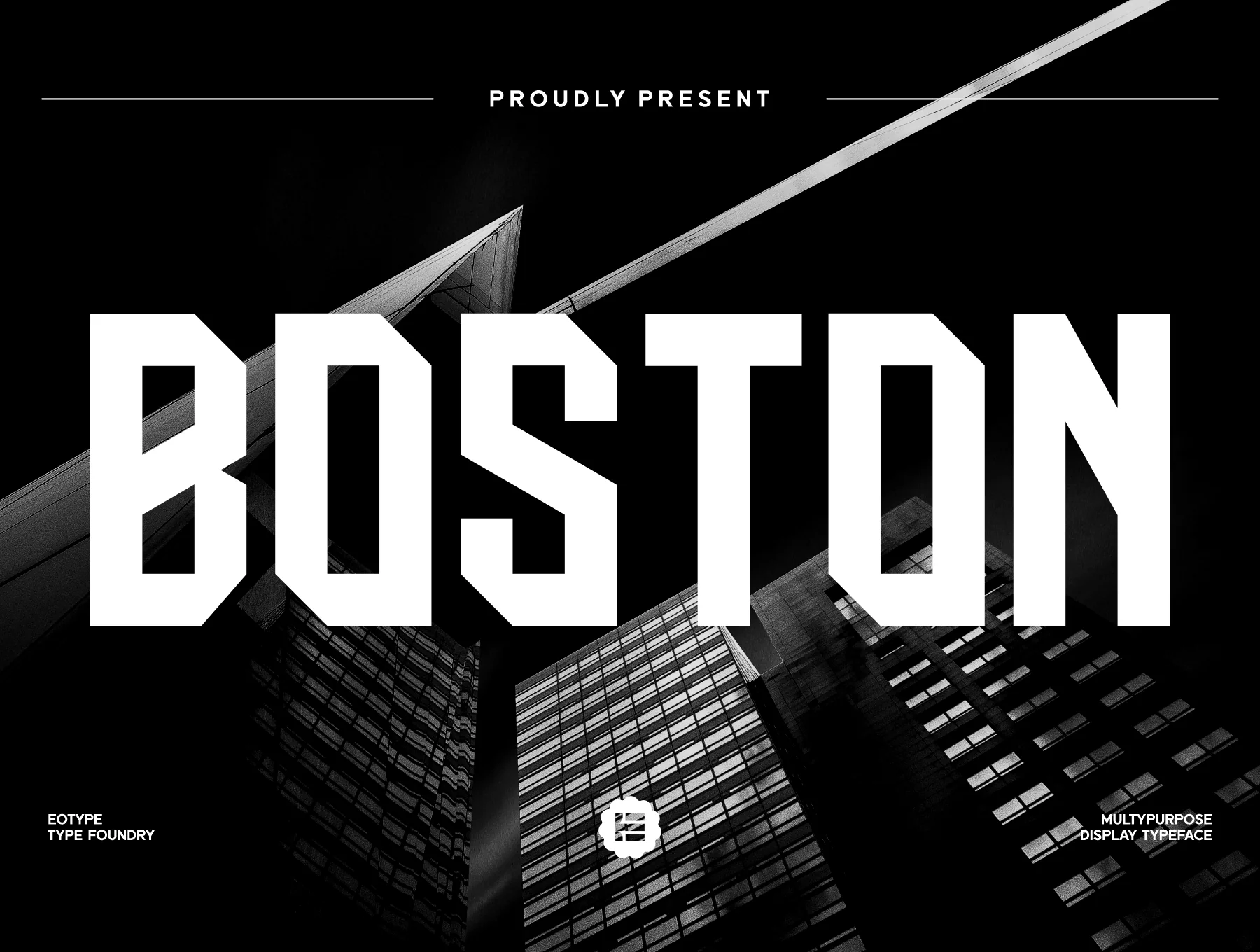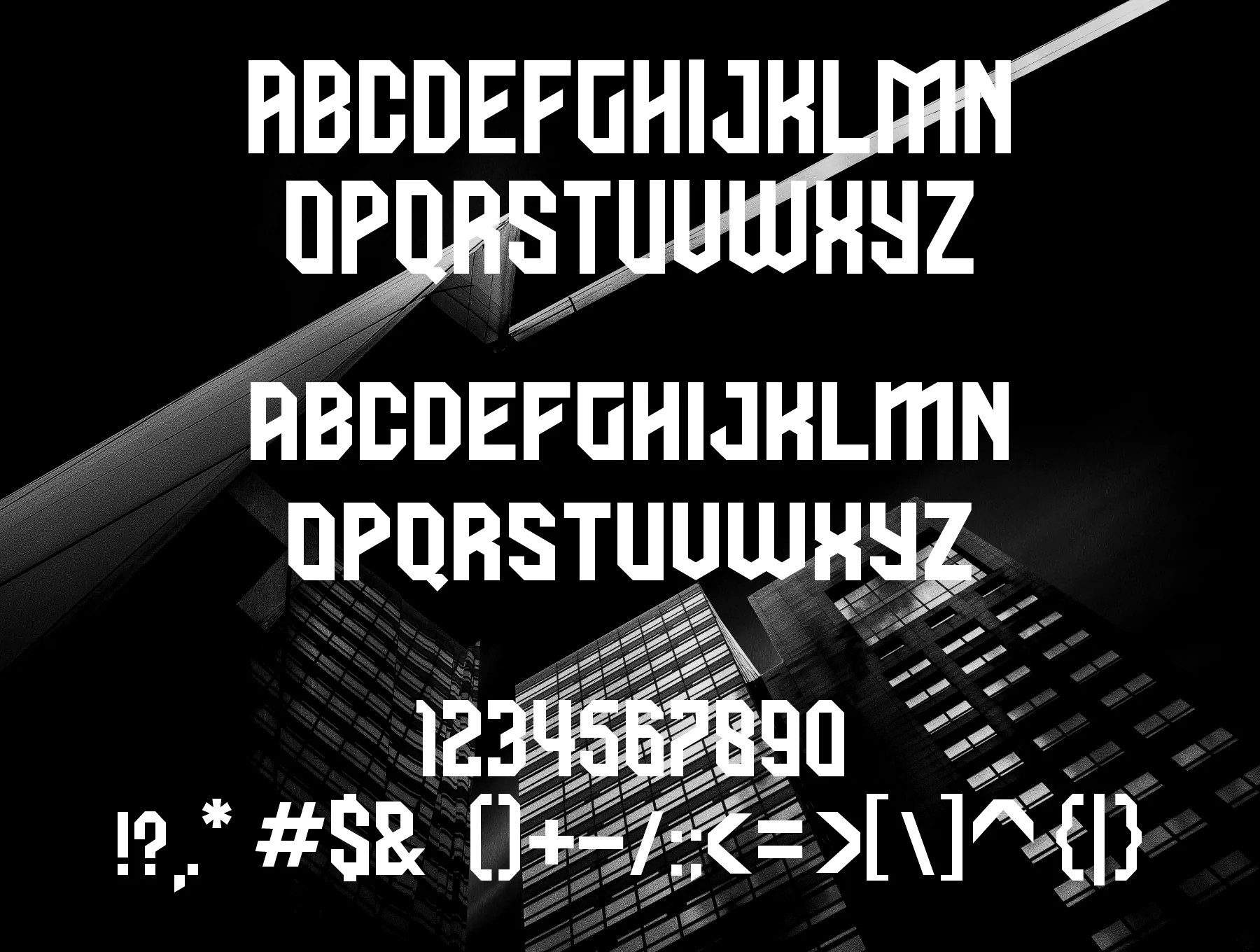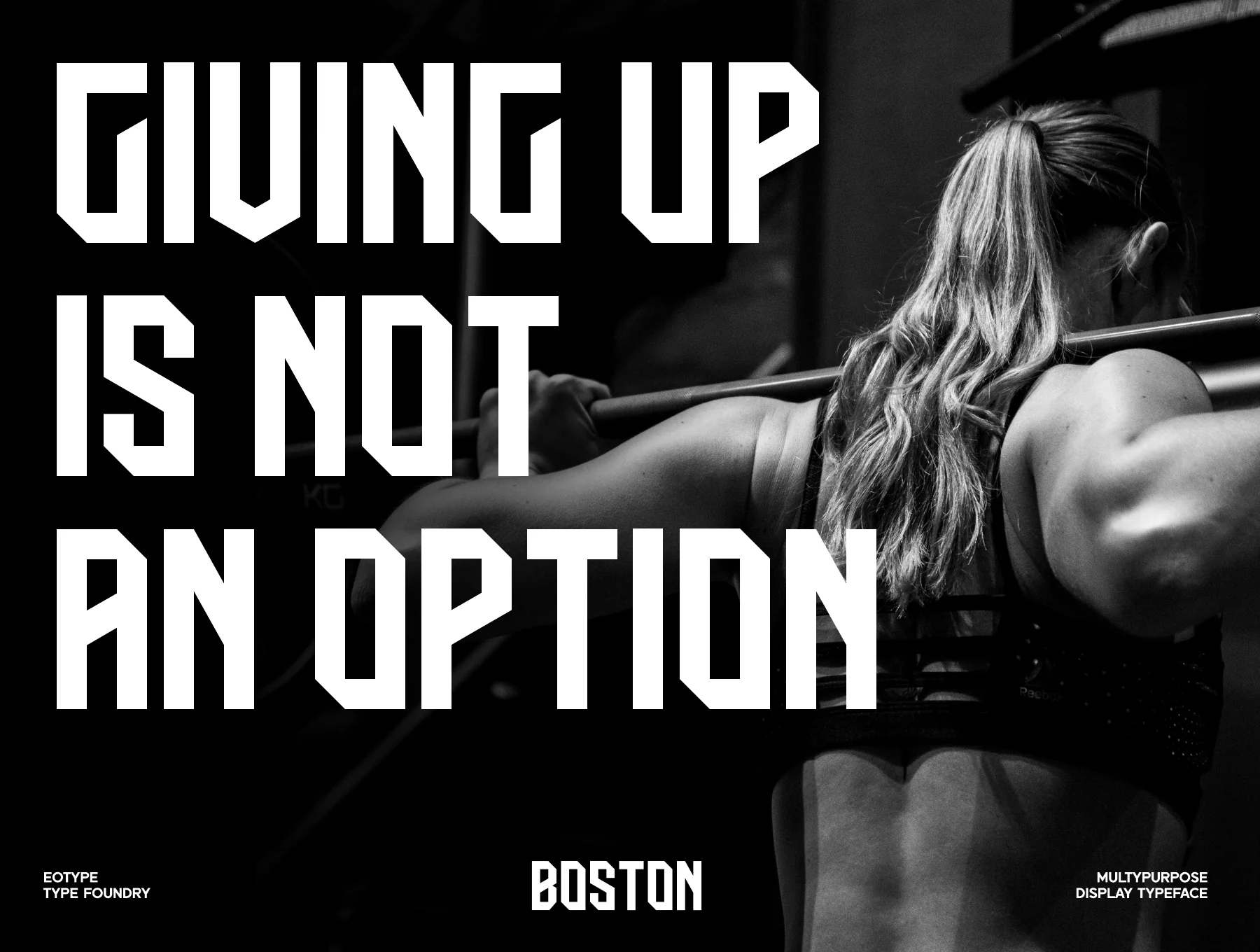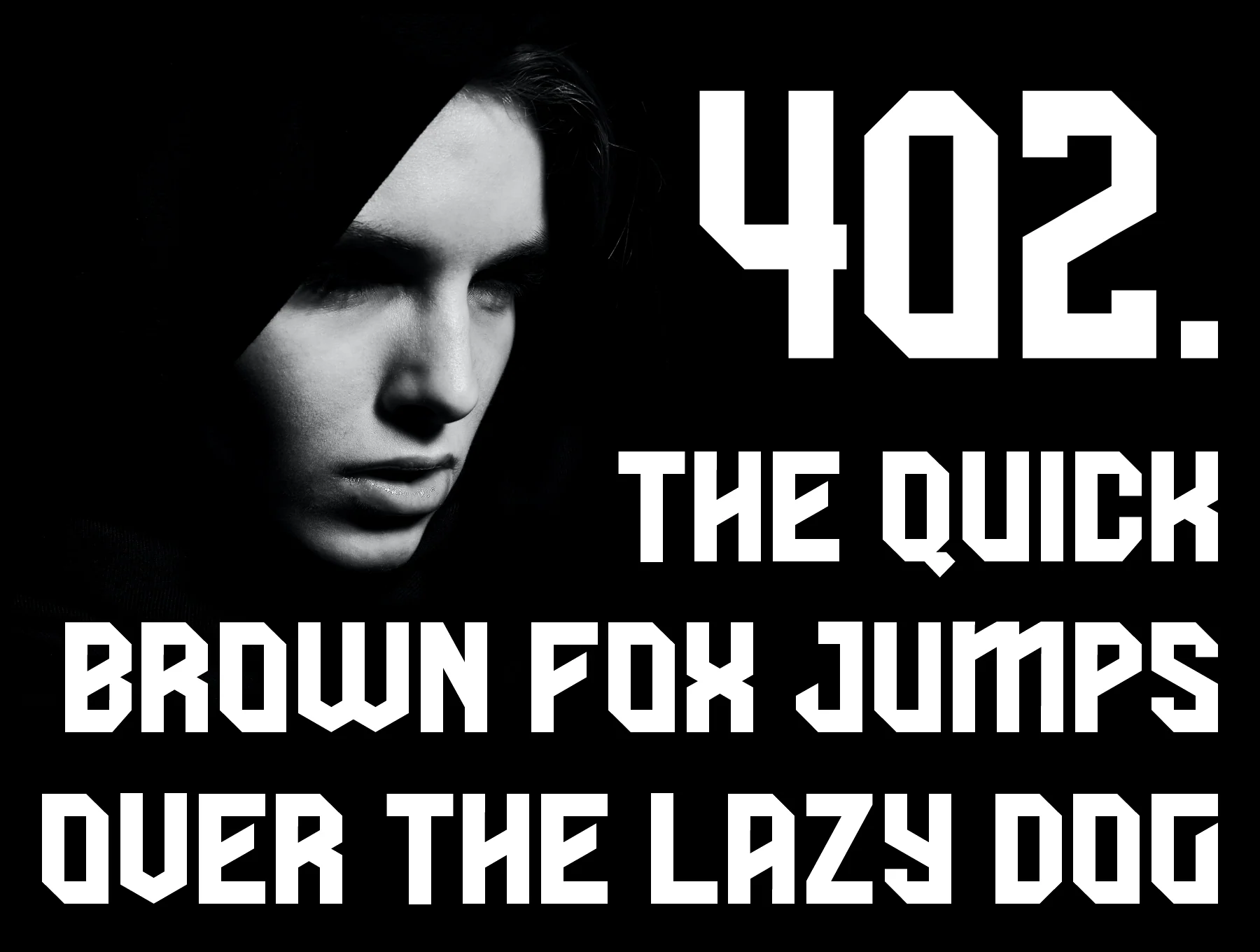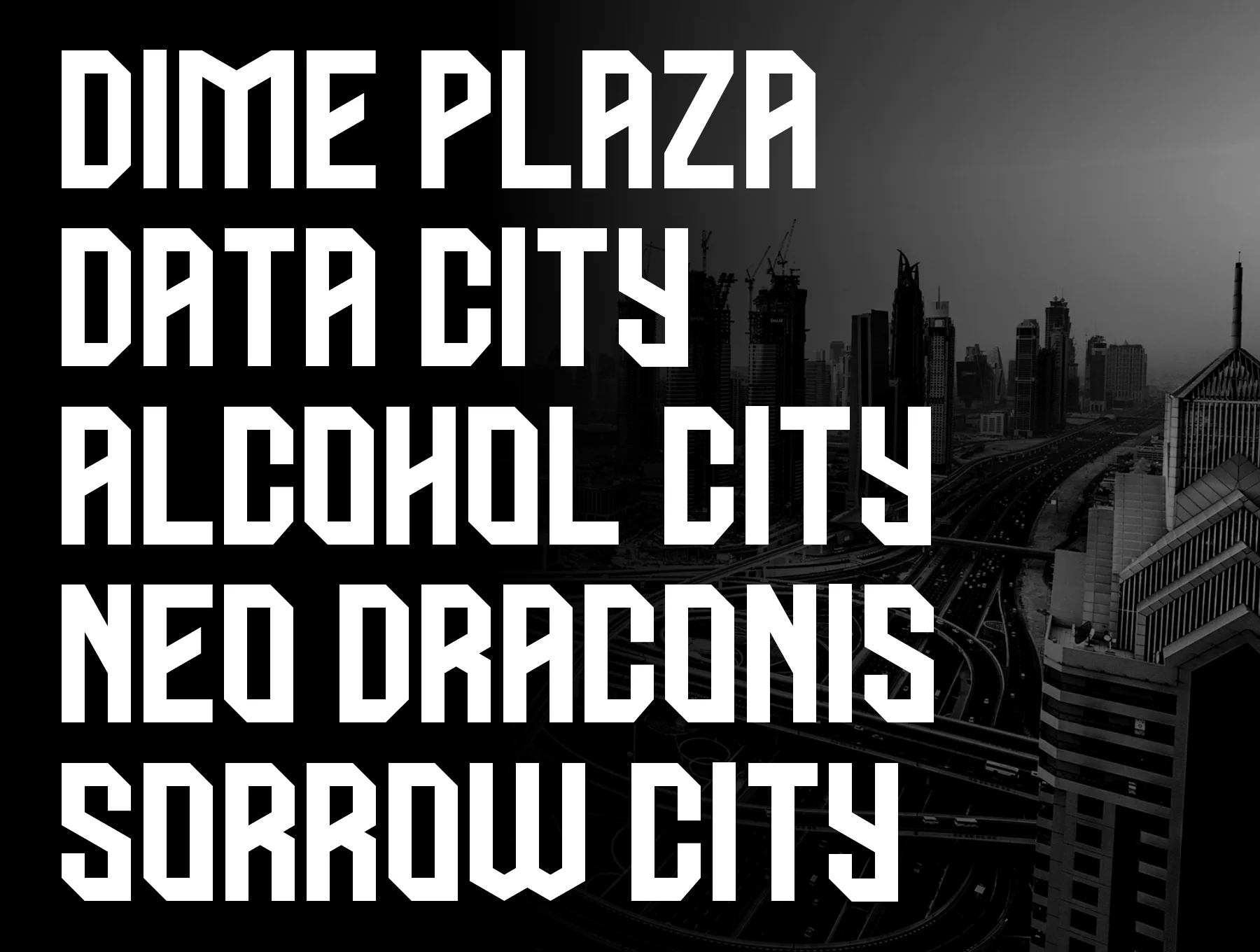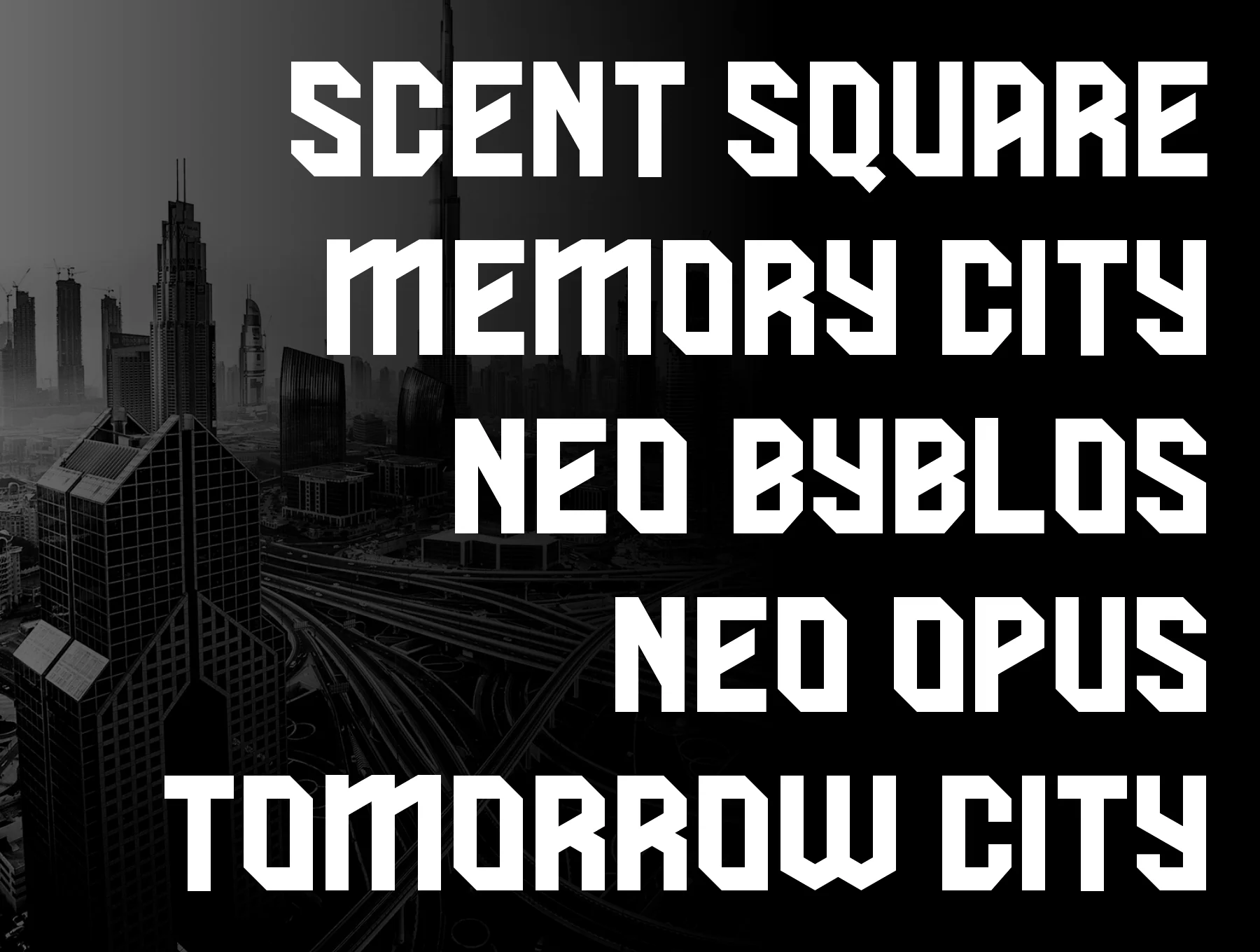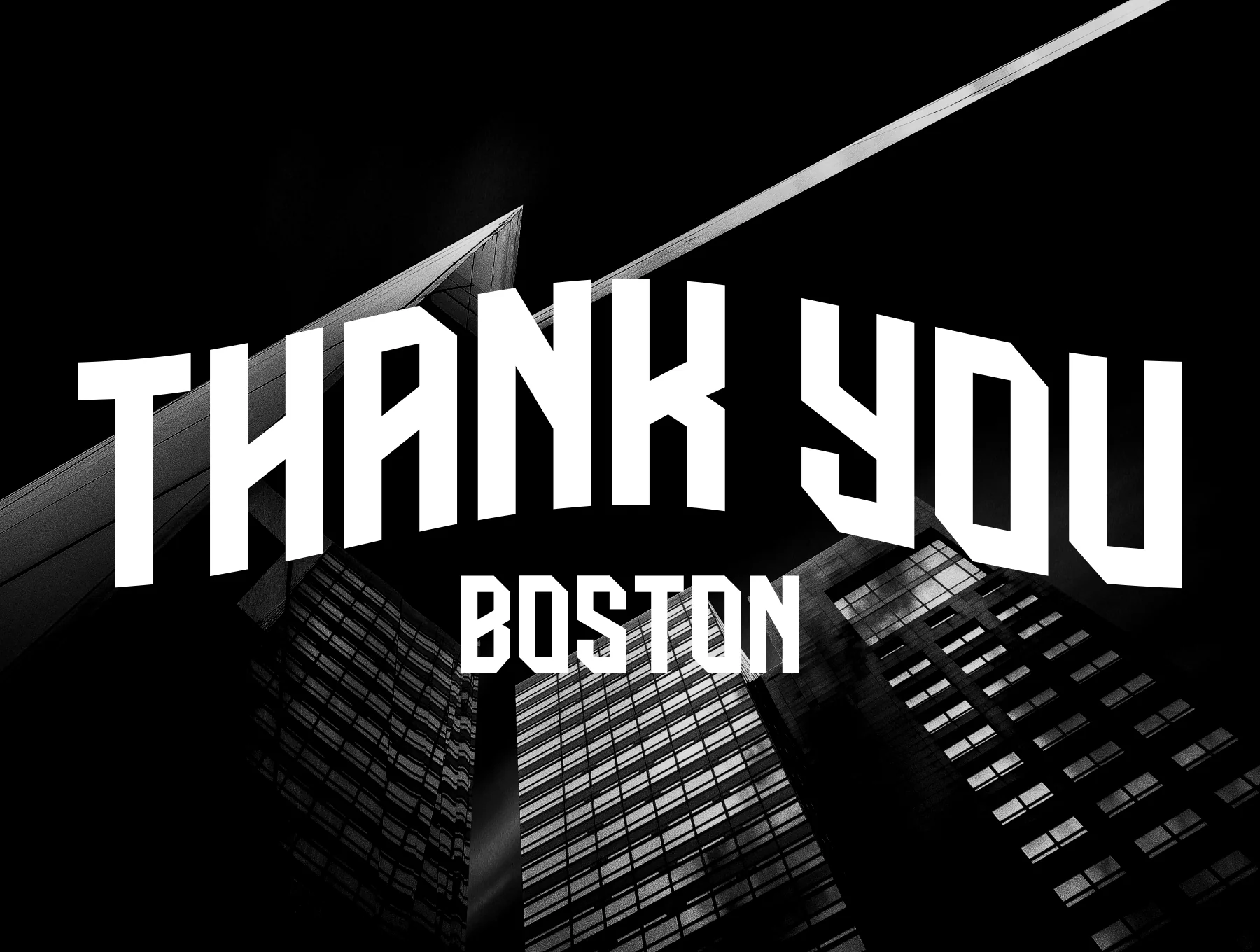
Boston - Dispaly Typeface
Boston – Contemporary Geometric Typeface
Basic glyph set
Normal style
Numbers and punctuation marks
Boston is a contemporary geometric typeface, with a striking display style that brings energy and visual impact to any design.